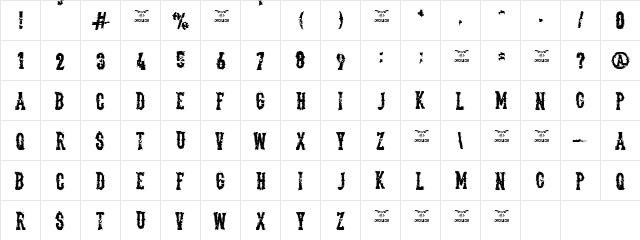
The Deadliest Saloon Regular
| Foundry | Fontmonger |
| Designer | Chris Vile |
Design Context for The Deadliest Saloon Typeface
The Deadliest Saloon taps into classic Western woodtype traditions — bold, characterful, and impossible to ignore.
A natural fit for craft spirits, ranch branding, rodeo events, and Americana-inspired design work.
Font Pairing: Combine The Deadliest Saloon with a simple slab or neutral sans — period-accurate companions reinforce the vintage feel without competing for attention.
Pro Tip: Use The Deadliest Saloon for short, impactful bursts of text — it shines in poster headlines and product names rather than extended copy.